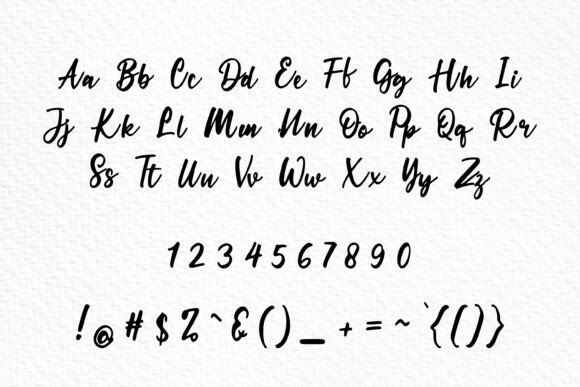
Introduction to Serene Script Font
Remember the thrill of staring at a blank canvas, waiting for inspiration to strike? The moment when a font choice can make or break the entire design? This is where the Serene Script Font comes in – a high-quality, elegant font that will elevate your creative projects and leave a lasting impression.
As designers, we’re always on the lookout for the perfect font to complement our unique style and artistic expression. With its versatility and polished touch, the Serene Script Font is an invaluable resource for any design project. Whether you’re working on a branding campaign, book cover, or poster, this font is sure to bring a level of sophistication and elegance that will set your design apart from the rest.
Key Features of Serene Script Font
- High-quality, elegant script font perfect for creative projects and designs.
- Comes with a transparent background, allowing for easy layering and customization.
- Designed with a high-resolution, 300 DPI, making it suitable for print and digital applications.
- Unique, flowing script style that adds a touch of sophistication and elegance to any design project.
Honest Review: Serene Script Font
As a designer, I’m always on the lookout for high-quality design resources to elevate my creative projects. The Serene Script Font is one such resource that caught my attention.
What works well with the Serene Script Font is its elegant and sophisticated feel, making it perfect for weddings, baby showers, or any other event that requires a touch of elegance. The font is available as a free download, which is a major plus in my book.
Some of the key features of the Serene Script Font include:
- High-quality design with smooth lines and curves
- Transparent background, making it easy to overlay on any image or design
How to Use Serene Script Font
Tips for Getting the Most Out of Serene Script Font
Here are a few tips for getting the most out of the Serene Script Font:
Alternatives to Serene Script Font